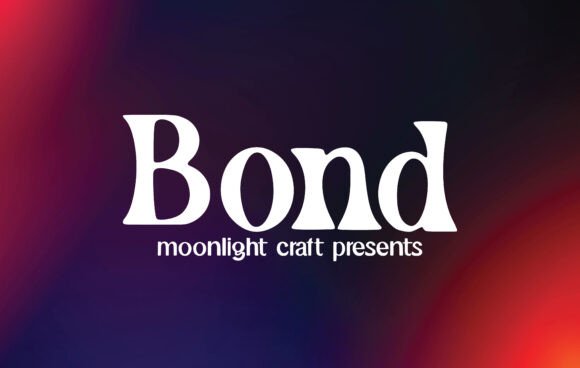
Bond Font: Elevate Your Creative Ideas to New Heights
The world of typography is vast and diverse, with numerous fonts available to cater to various design needs. Among these, the Bond Font stands out as a versatile and stylish choice, designed to be a true favorite among designers and creatives. This font is legible, visually appealing, and perfect for a wide range of applications, from magazine headlines to social media graphics, and from wedding invitations to t-shirt designs.
The Features of Bond Font
Bond Font is crafted with precision and attention to detail, making it an excellent choice for designers seeking a font that can elevate their creative ideas to the highest level. Its key features include:
- Legibility: Bond Font is designed to be easily readable, making it suitable for both title and body text. Its clear and concise letterforms ensure that your message is conveyed effectively, regardless of the medium.
- Versatility: This font is perfect for a multitude of design projects, including magazine headlines, t-shirts, social media graphics, branding materials, wedding invitations, cards, and more.
- Style: Bond Font boasts a unique and stylish aesthetic that can add a touch of sophistication to any design. Its elegant lines and curves make it an excellent choice for designers seeking to create visually appealing content.
Why Choose Bond Font?
With so many fonts available, why should you choose Bond Font for your design projects? Here are a few compelling reasons:
- Uniqueness: Bond Font offers a distinctive style that sets it apart from more traditional fonts. Its unique aesthetic can help your designs stand out in a crowded market.
- Readability: As mentioned earlier, Bond Font is highly legible, making it suitable for a wide range of applications, from large headlines to smaller body text.
- Flexibility: This font can be used in various design contexts, from digital media to print materials, making it an excellent addition to any designer’s toolkit.
Applications of Bond Font
Bond Font’s versatility makes it an excellent choice for numerous design projects. Here are some examples of how you can use this font to elevate your creative ideas:
Magazine Headlines
Bond Font is perfect for magazine headlines, where a bold and eye-catching title can make all the difference. Its stylish aesthetic and high legibility make it an excellent choice for grabbing readers’ attention.
T-Shirt Designs
T-shirts are a popular canvas for designers, and Bond Font can help create visually appealing and stylish designs. Its unique aesthetic and readability make it an excellent choice for t-shirt designs that need to stand out.
Social Media Graphics
Social media is a crowded space, and designers need to create graphics that stand out. Bond Font can help you achieve this goal, with its stylish aesthetic and high legibility making it perfect for social media graphics.
Wedding Invitations and Cards
Wedding invitations and cards require a special touch, and Bond Font can provide it. Its elegant lines and curves make it an excellent choice for creating beautiful and sophisticated wedding designs.
Tips for Using Bond Font Effectively
To get the most out of Bond Font, here are some tips for using it effectively:
- Experiment with sizes: Bond Font looks great in various sizes, from large headlines to smaller body text. Experiment with different sizes to find the one that works best for your design.
- Play with colors: Bond Font can be used with a wide range of colors, from bold and bright to more subtle and muted tones. Experiment with different colors to find the one that best suits your design.
- Mix and match: Bond Font can be paired with other fonts to create visually appealing combinations. Experiment with different font pairings to find the one that works best for your design.
Bond Font is a versatile and stylish font that can elevate your creative ideas to new heights. Its legibility, versatility, and unique aesthetic make it an excellent choice for a wide range of design projects, from magazine headlines to social media graphics, and from wedding invitations to t-shirt designs. By following the tips outlined above, you can use Bond Font effectively and create stunning designs that capture your audience’s attention.